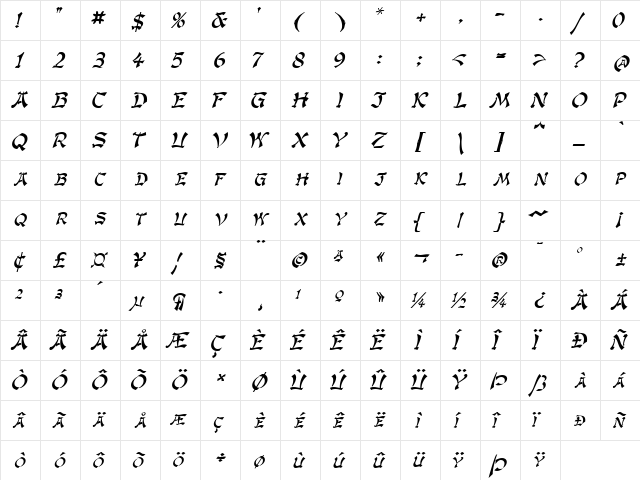
MarcoPoloSCapsSSK Italic
Design Context for MarcoPoloSCapsSSK Typeface
MarcoPoloSCapsSSK is a composed and adaptable typeface that performs quietly and consistently across a wide range of design contexts. The slanted form adds forward momentum and visual energy.